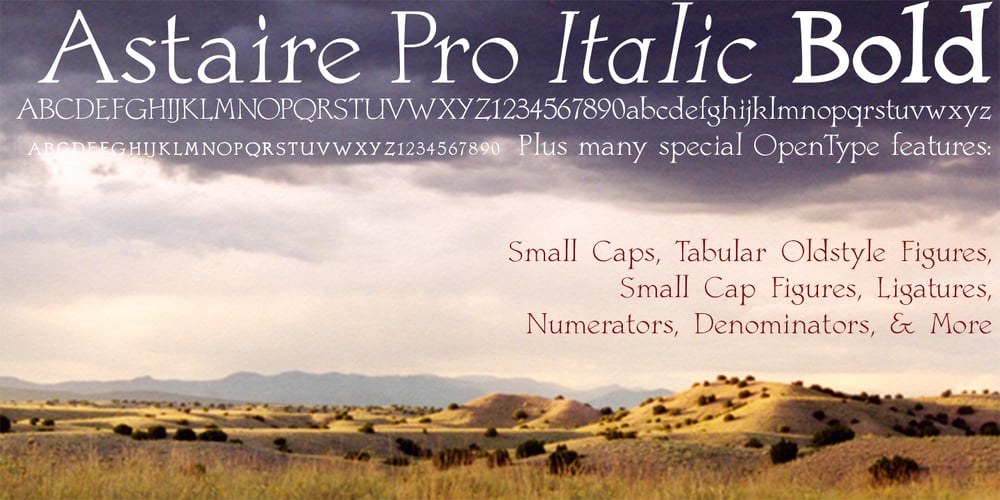
Astaire Pro
Astaire Pro font
Astaire Pro Font Family was designed by David Bergsland and published by Hackberry Font Foundry. Astaire Pro contains 4 styles and family package options. This is a deco-style text OpenType Pro font loosely based on Koch’s Locarno as seen in KochAltschrift a recent free German tribute to Koch’s work. I was familiar with Meek’s Letraset presstype version called Locarno, but I never liked the proportions used by either Meeks or Koch. So I radically revised ascender, descender, and x-height to make them more usable and brought the shapes within my sense of design. Mine is probably closer to Meeks than Koch, but hopefully it is a tribute to both. Astaire looks much more modern and it is much more usable. I added oldstyle figures, small cap figures, small caps, several ligatures, and more. There are an italic, bold, and bold italic also in this family